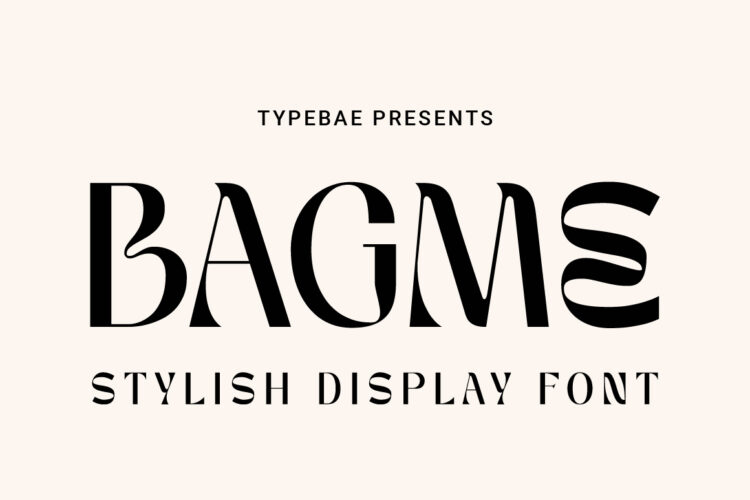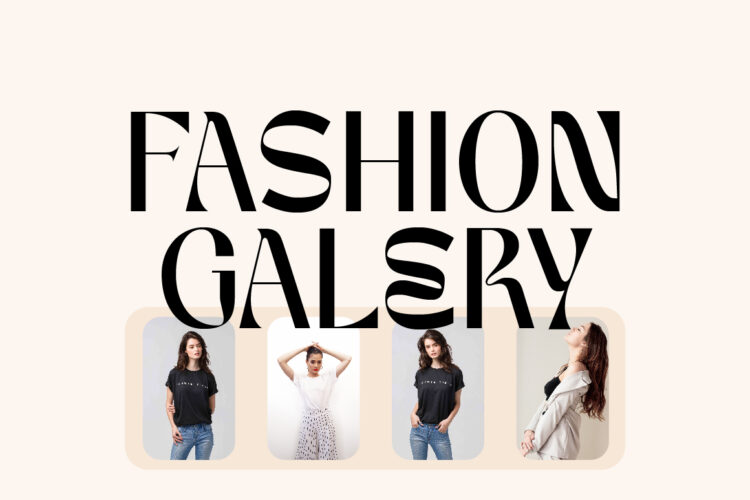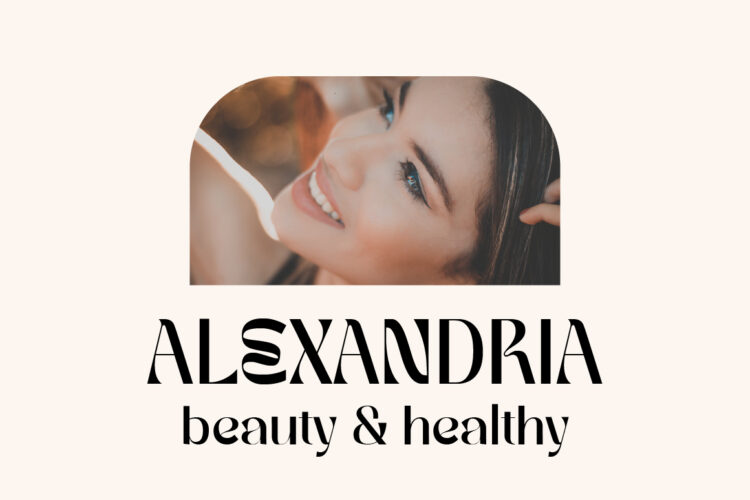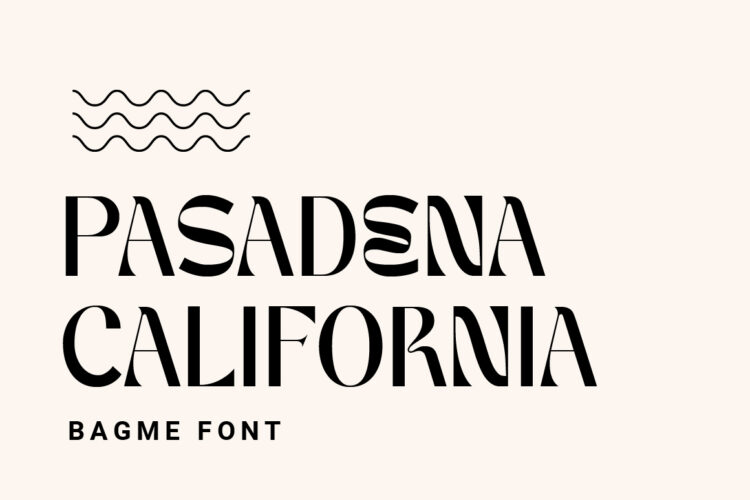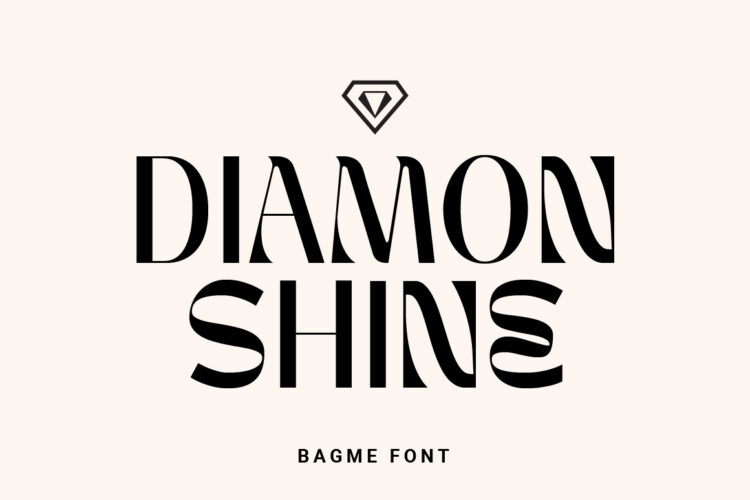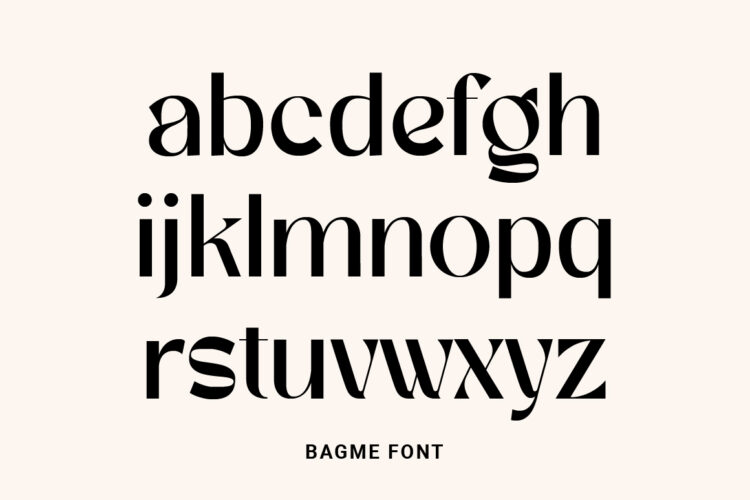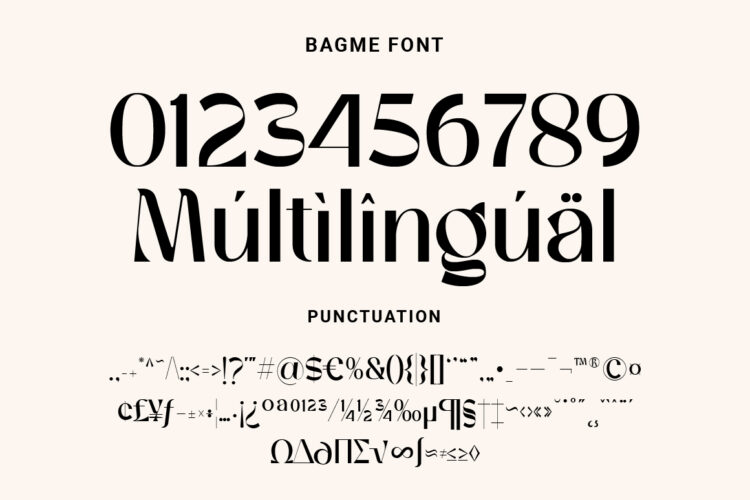
Stylish Display Font
Bagme
Bagme is a stylish display typeface. Has a distinct curve and a lively personality. Ideal for projects that require a distinct personality.
Bagme – Stylish Display Font